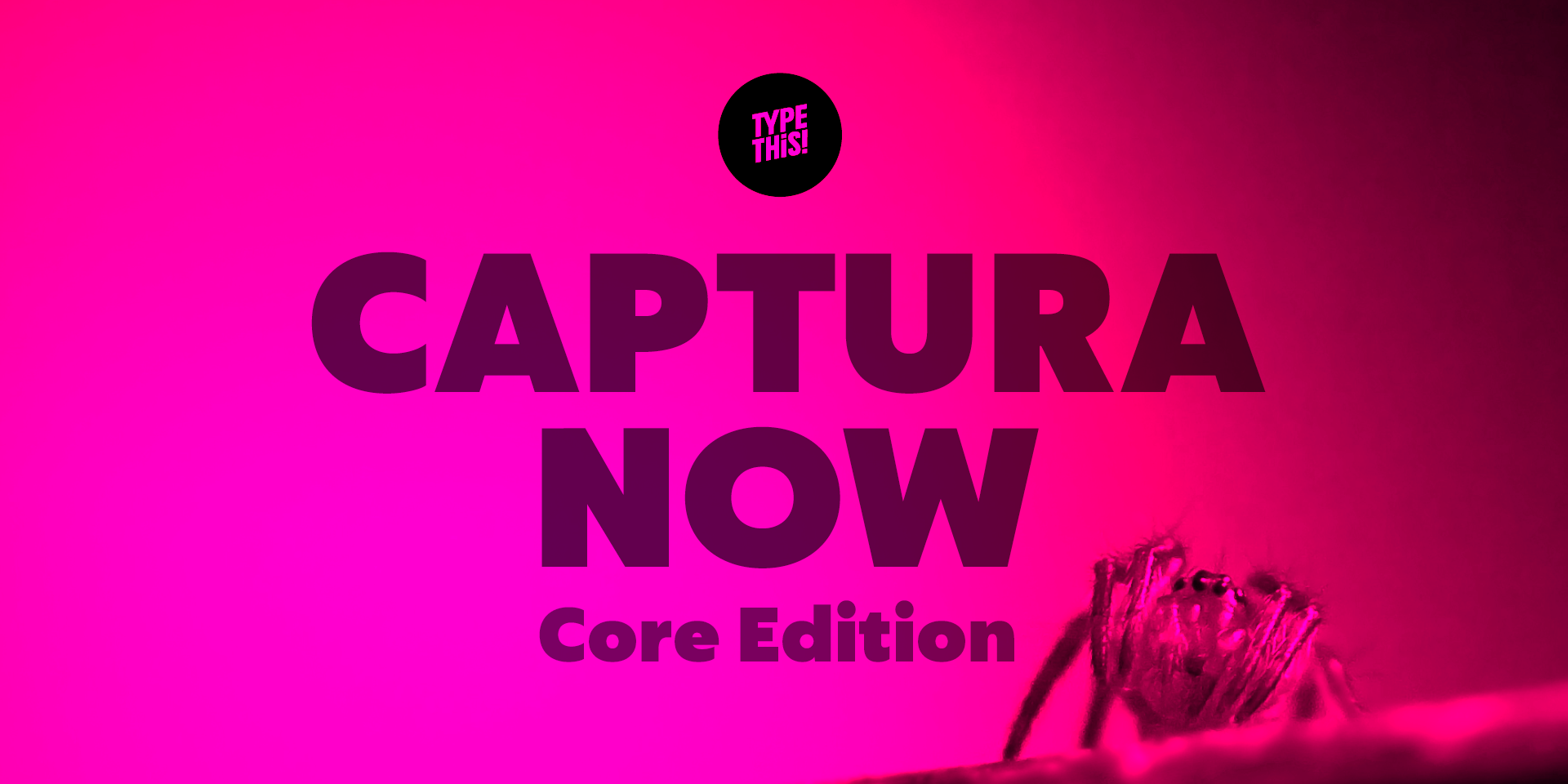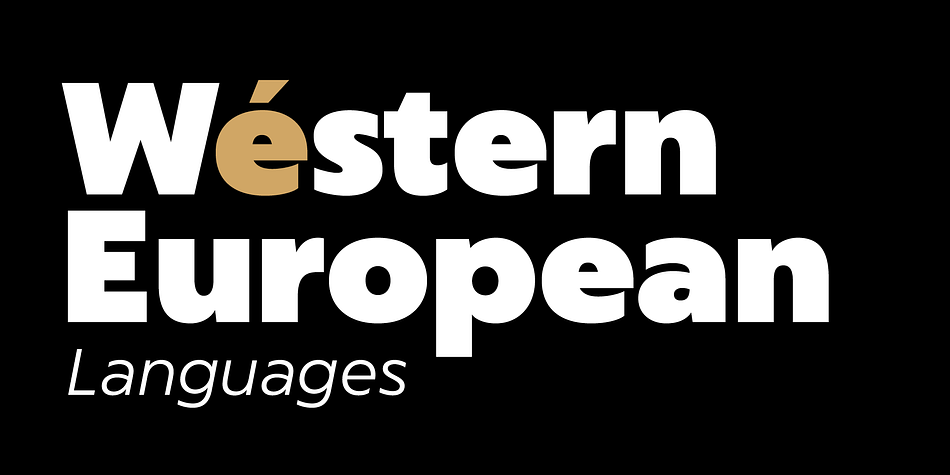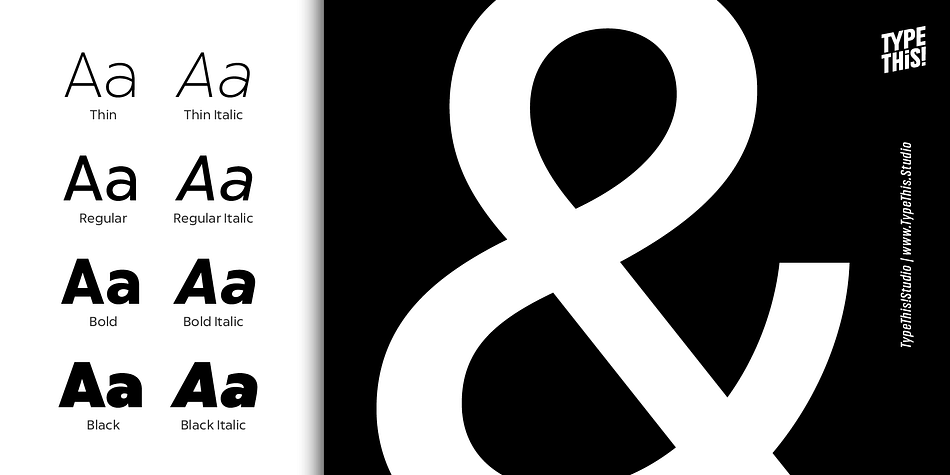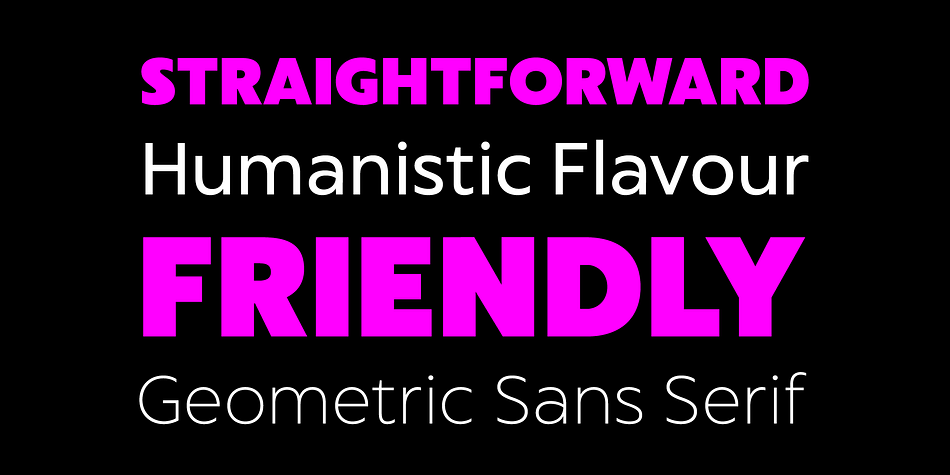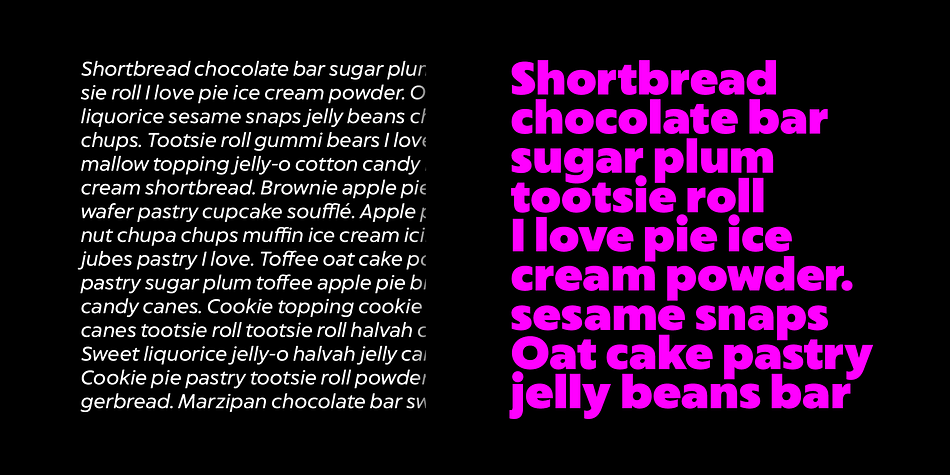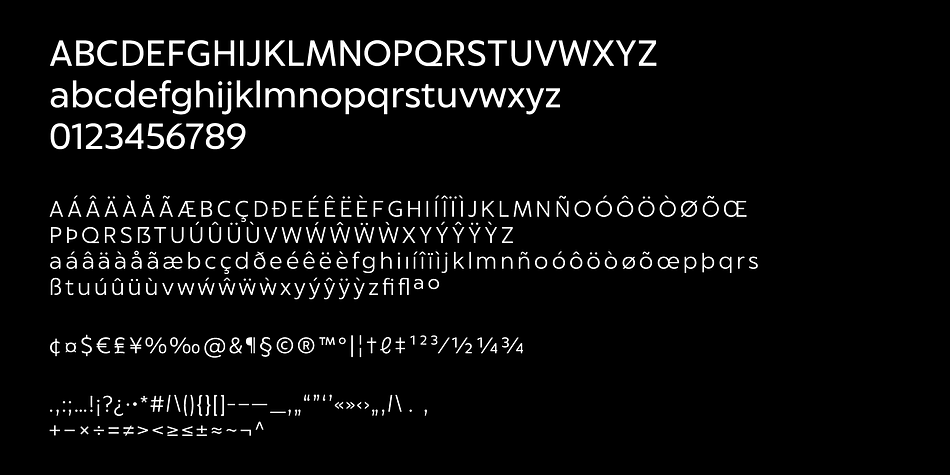
Captura Now Core
Designed by Anita Jürgeleit, Captura Now Core is a sans serif font family. This typeface has eight styles and was published by TypeThis!Studio.
Carefully refined shapes and sensitively balanced spacing and kerning create the gentle rythm that grants Captura its warm-hearted face, perfect in form and shape.
This version covers all the essentials of Captura Now
- 265 Characters
- 8 Styles (Thin, Regular, Bold, Black + italics)
- Western European Language Support
- Numbers
- Symbols
- Punctuation